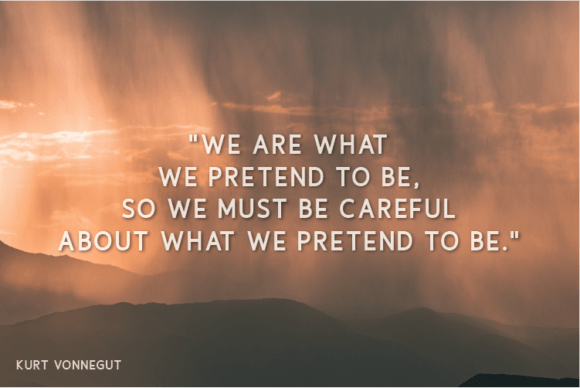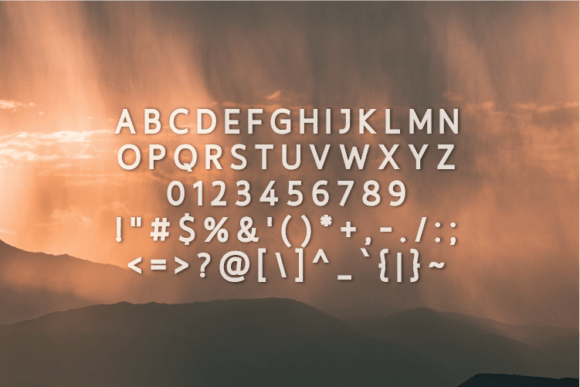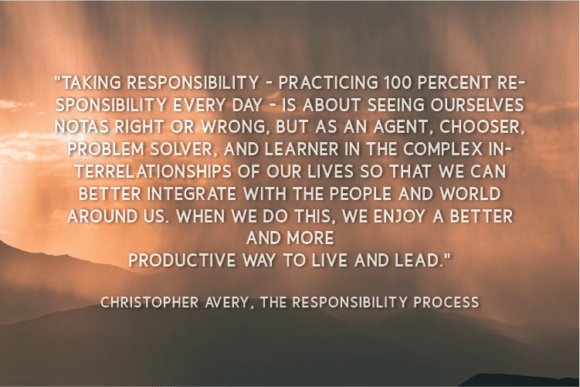
Introducing Matrixoe, a modern, classy sans serif typeface.
A sans serif typeface that contains upper characters, numbers 0-9, and a range of punctuation and symbols An extremely versatile font, perfect for logos, weddings, invitations, quotes, advertisements, print, magazines, and more.